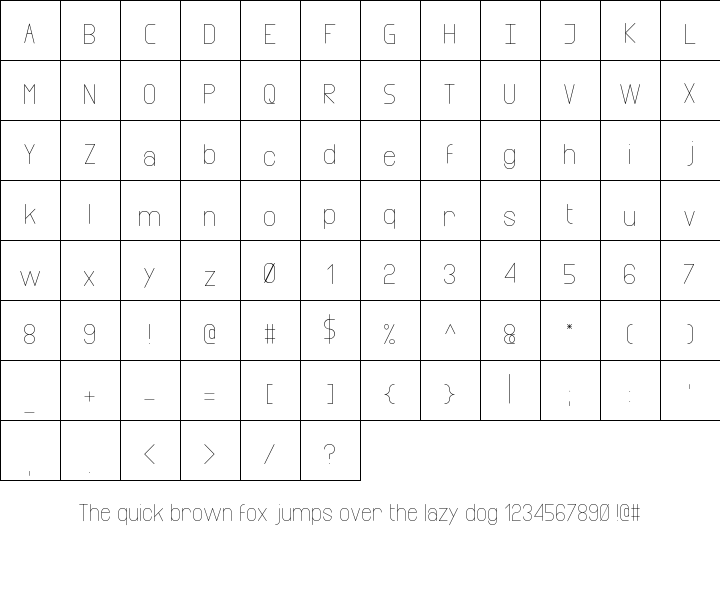
Infinity Font is part of the Sans-Serif font family. It features thin lines and offers a modern and elegant look. We have created a typeface that is perfect for any design or project, with its unique and modern appearance. The designer has added an extra touch of elegance to this font, making it stand out and captivate the readers.
The design of the texture of this font site is also suitable for utilization in the device’s interface. This typeface also has some of the matching personalities typefaces. But with the information, we have gathered that Ogonek Unicase Font has the most similar personality with this font style. So, it can also use as an alternative to this font style. This font style can be seen on a number of websites as the front page displays and heading. It has been also utilized on the book covers.
Designer of Infinity Font
This thin line font has been designed by Tarin Yuangtrakul. He is a well-known graphic and font designer who lives in Bangkok. He has also designed many of the famous fonts that are used in a number of designs and projects.
This font style has been constructed with a single style. This style is comprised of capital letters, small letters, glyphs, punctuations, numbers, symbols, special characters, and many languages support.
View of Infinity Font
What type of font is Infinity font?
This font style has a thin and attractive texture appearance that is best to utilize in almost every designs and project.
Is Infinity font is a web font?
This font style has an elegant font appearance that has a clean texture. It has been seen in the majority of websites use as a body text. So, yes this font style is also a web font.
Can I use Infinity Font to create a logo?
This typeface is perfect to utilize in-display projects and designs. So, yes you can use this font for logo designs.
Is Infinity Font Worth Using?
This typeface has been used by many organizations and designers. So, yes this typeface is worth using.